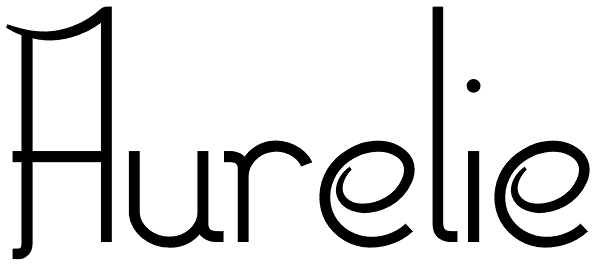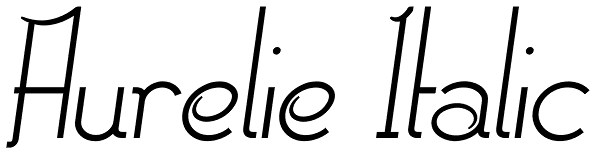
Aurelie
The font 'Aurélie' is a decorative yet contemporary writing font by Daniel Keith Bale. Applications for this font may include titles, letterheads, dialogue, written works and captions. With a thin, sleek and sexy appearance, 'Aurélie' will prove to...